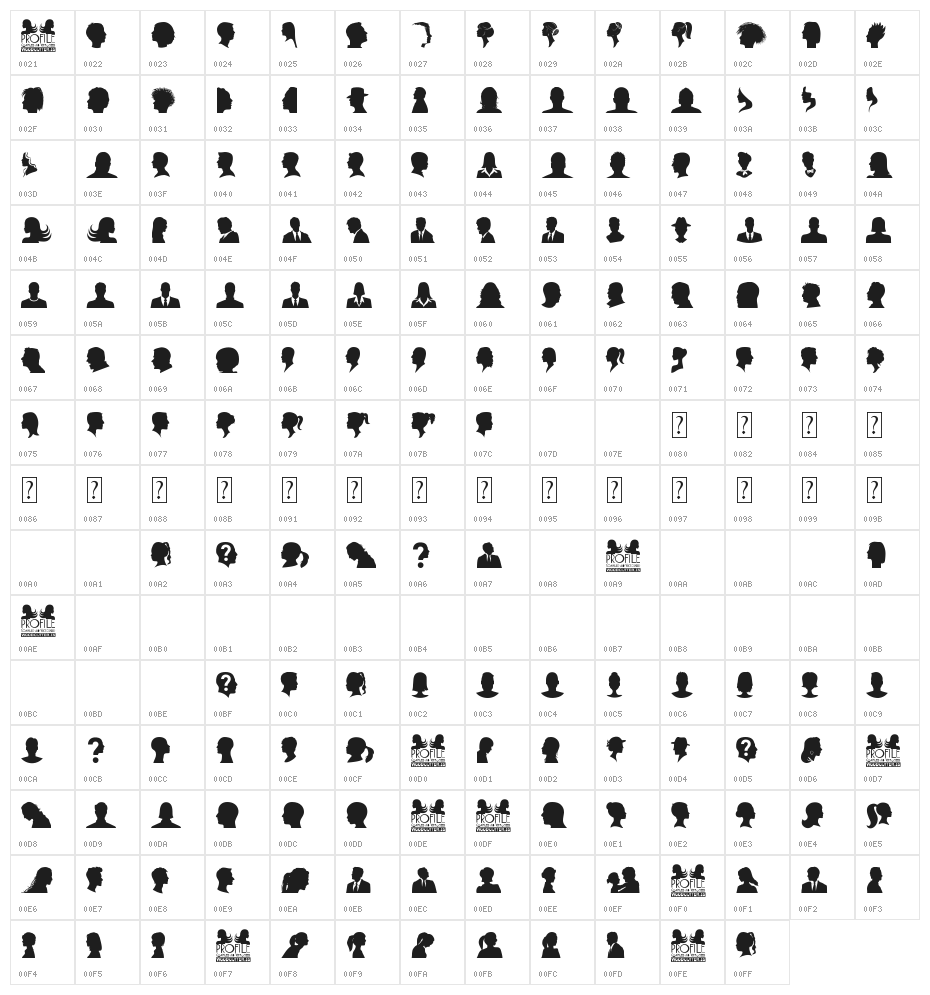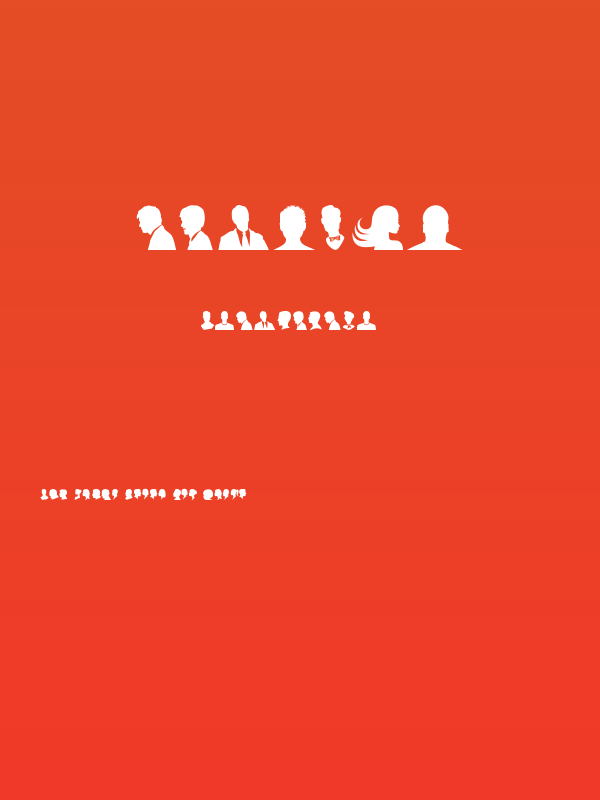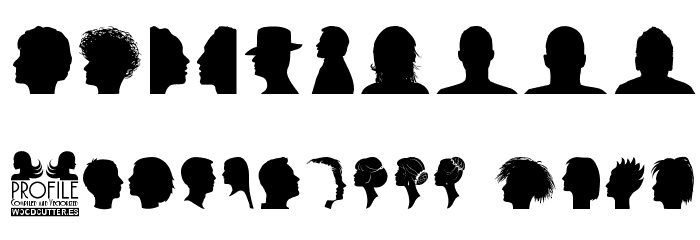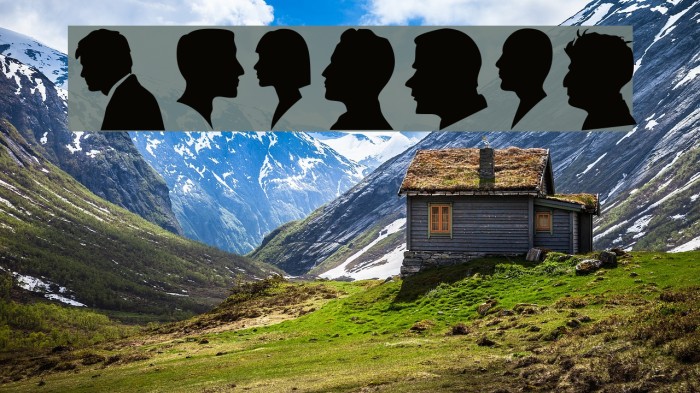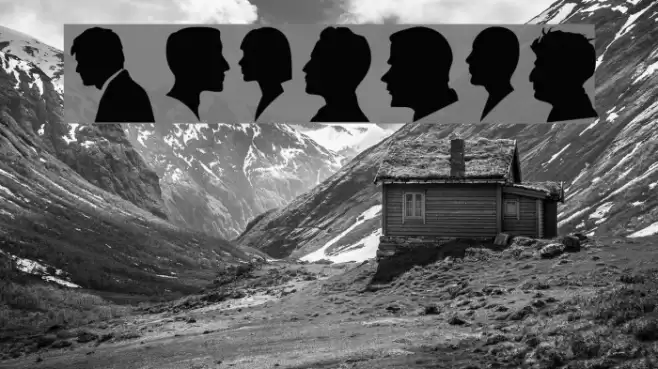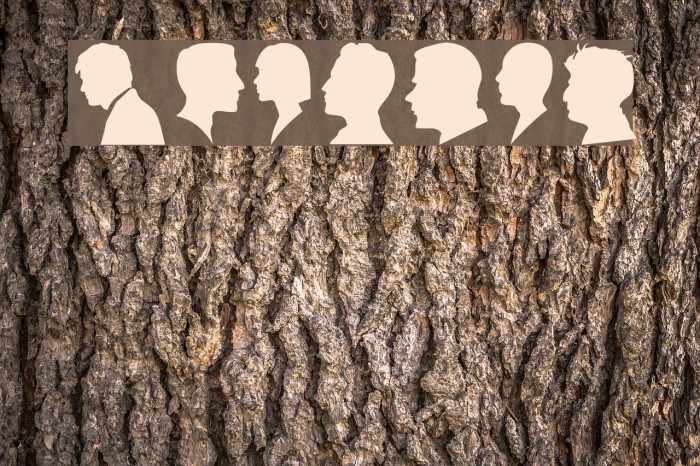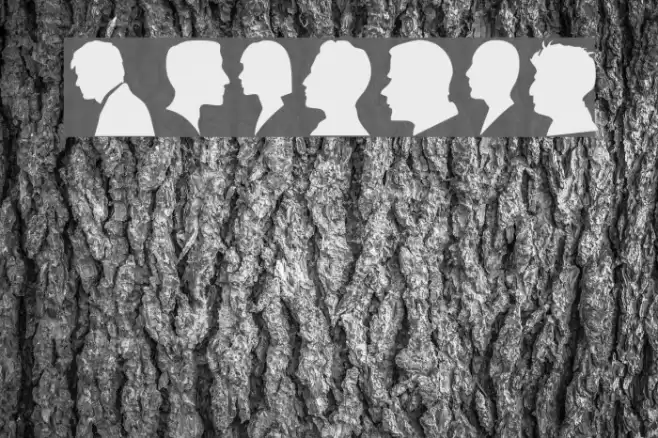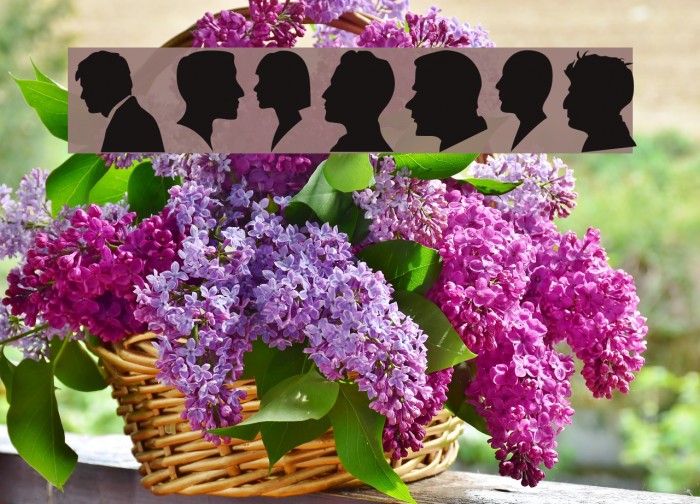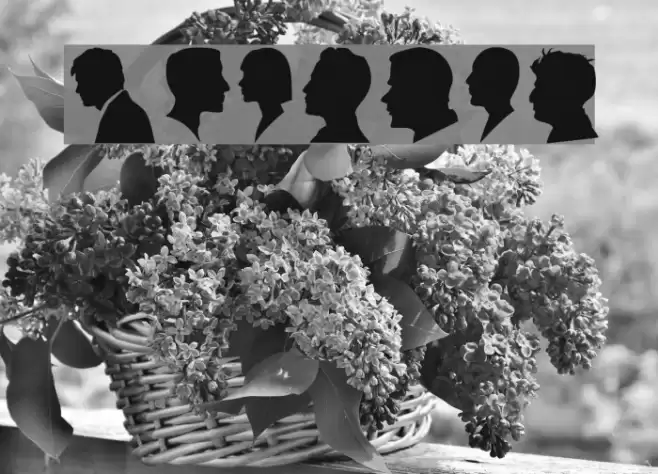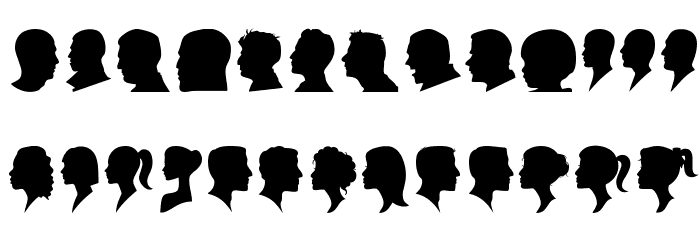
Profile Font
Profile Description
A collection of black silhouette profile illustrations representing diverse male and female head shapes, hairstyles, and attire, designed for use as icons or avatars.
| Overall Style | Modern, Minimalist |
| Use Case | Icons, Avatars, User profiles, Graphic design elements |
| Proposed Projects | Use in user interfaces, social media avatars, identity design, presentations, and infographics. |